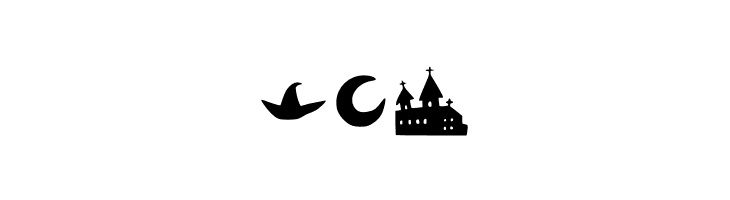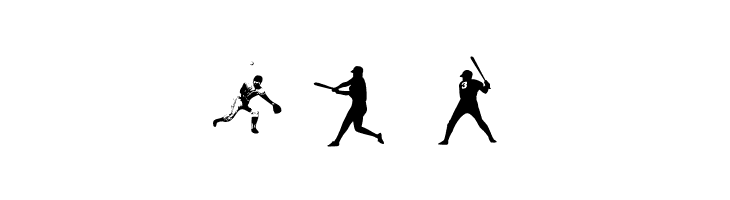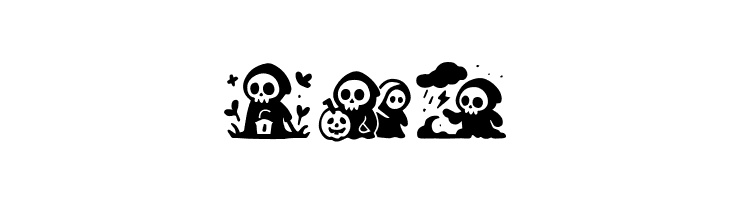
( Fonts by Lontong Lodeh )
A spooky, bold font with jagged edges, ideal for Halloween themes.
( Fonts by Muhammad Yafinuha )
Halloween-themed decorative dingbat font with spooky icons.
( Fonts by Muhammad Yafinuha )
A playful display font using witch hats as characters.
A dynamic collection of sports silhouettes and bold, 3D-styled numbers.
( Fonts by Kong Font )
A dinosaur-themed decorative font with playful, bold characters.
( Fonts by BlackFridayFont FMF )
Whimsical grim reaper dingbat icons in bold silhouette style.